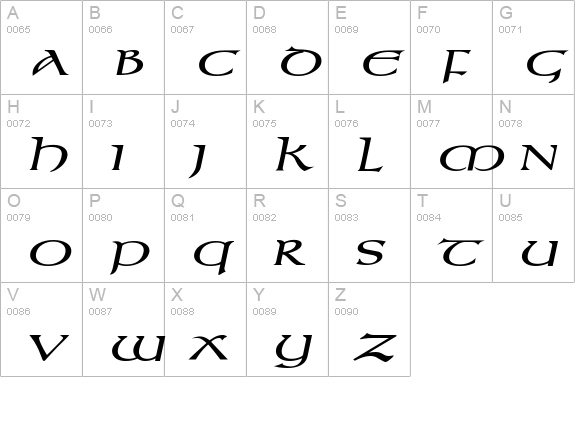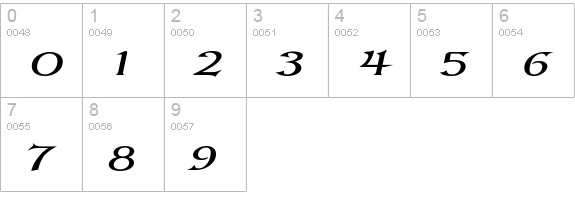
Kelt Extended BoldItalic is a distinctive, extended-width variant in the Kelt typeface family \xE2\x80\x94 well suited to design and typography projects.
Kelt Extended BoldItalic font is a stunning and versatile typeface that exudes elegance and sophistication. With its bold and italic design, this font adds a touch of uniqueness and flair to any project or design. The Kelt Extended BoldItalic font is perfect for both headings and body text, making it incredibly versatile for a wide range of creative projects. Whether you're designing a logo, creating a poster, or crafting a website, this font will make your text stand out and grab attention. What sets Kelt Extended BoldItalic font apart is not just its visual appeal, but also its availability. This font is freely available to download at FontsMarket.com, allowing you to use it in your projects without any cost. This makes it an excellent choice for designers and creatives on a budget, as it provides high-quality typography without breaking the bank. The Kelt Extended BoldItalic font features beautifully crafted characters with smooth curves and clean lines. Its bold and italic nature adds emphasis and adds a touch of drama to your text, making it ideal for creating eye-catching headlines or emphasis on important information. Whether you're designing a magazine layout, creating a branding identity, or working on a digital project, the Kelt Extended BoldItalic font will elevate your design with its stylish and modern aesthetic. Its versatility and visual appeal make it a must-have font for any designer or creative professional. In conclusion, the Kelt Extended BoldItalic font is a free and impressive typeface that will enhance your design projects with its bold and italic design. Download it now at FontsMarket.com and add a touch of elegance and sophistication to your next project.